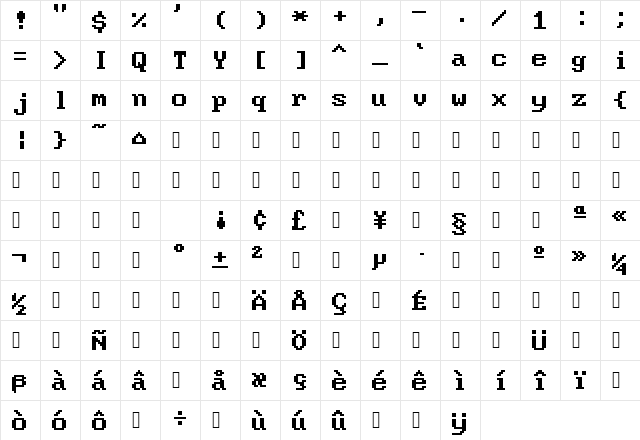
Complete BigBlue_Terminal_437TT Nerd Font Book glyph index. Displaying only characters natively supported by BigBlue_Terminal_437TT Nerd Font Book font.
BigBlue_Terminal_437TT Nerd Font is a composed and adaptable typeface that performs quietly and consistently across a wide range of design contexts.